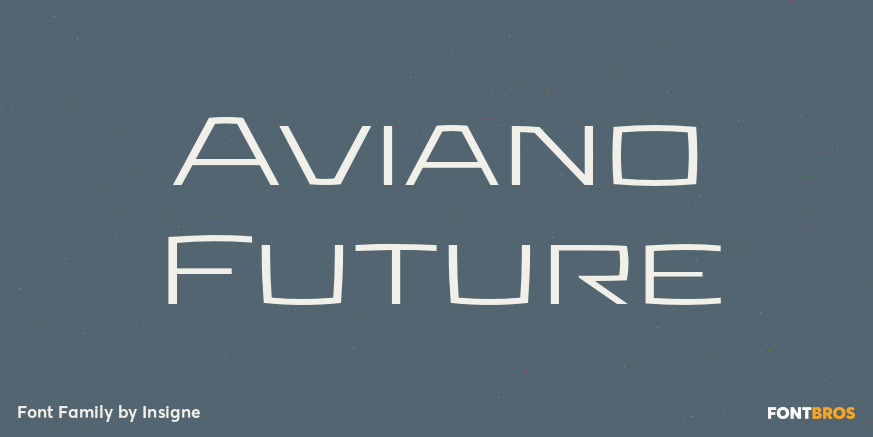
Aviano Future
About Aviano Future
The Aviano series returns with a vigorous and futuristic sans serif. Aviano Future\’s powerful squared forms lend intensity and authority to your designs. Aviano Future\’s extended forms give the face strength and muscle. Aviano Future is a versatile new…